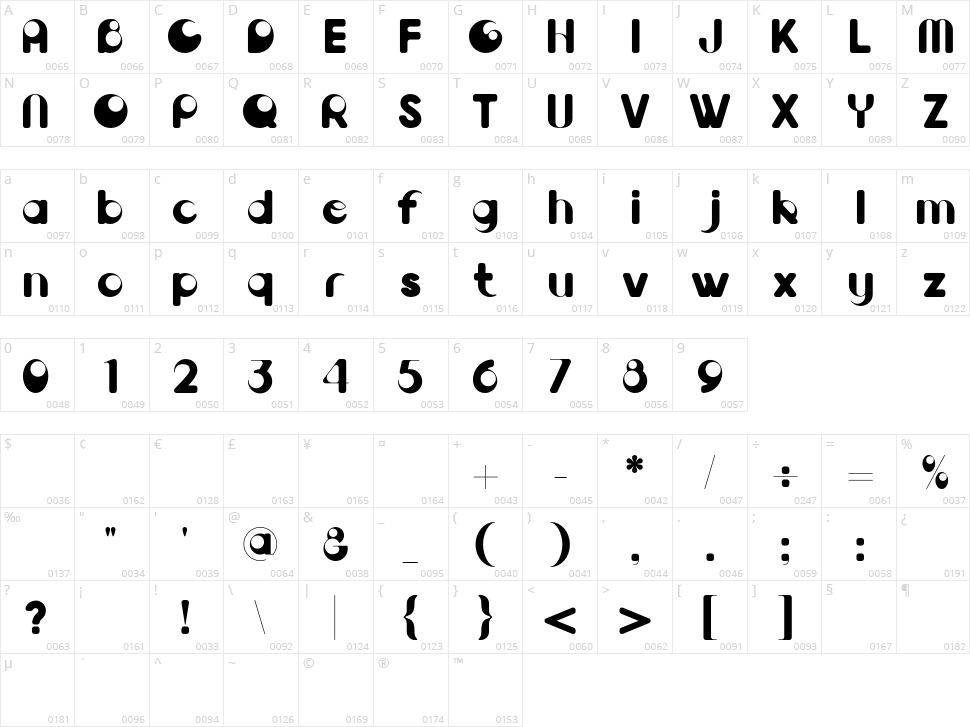
Bobar
Note of the author Bobar is a retro inspired variable font. Bobar is very eye catching, its groovy design and bold chunky shape makes it great for retro projects. Bobar comes with standalone fonts and a variable version, the variable version allows you to manually adjust the slant.
Designer Name: Valentino Vergan